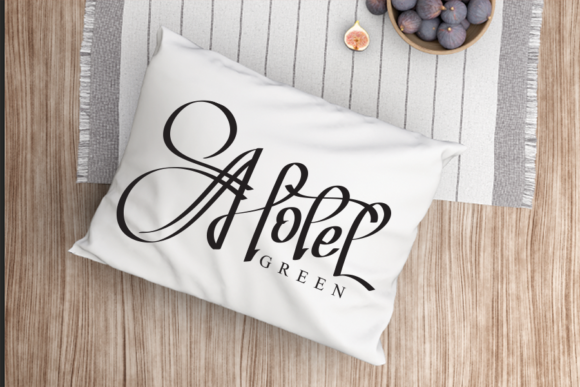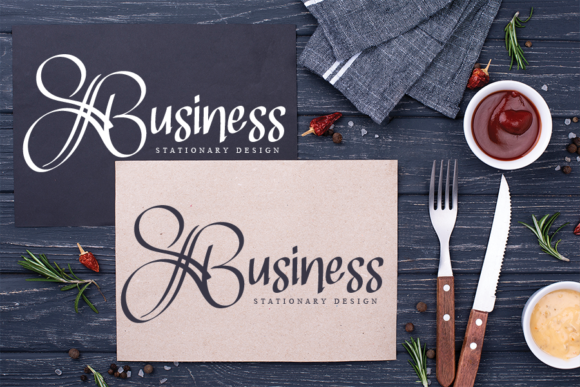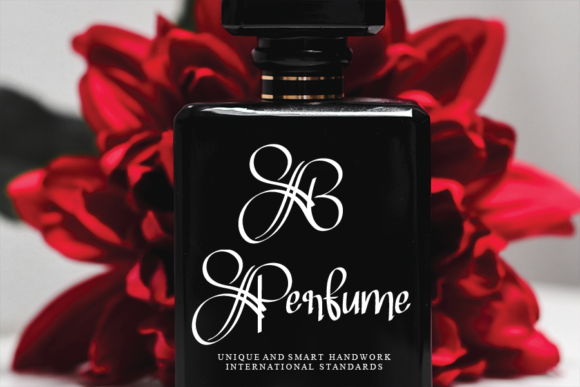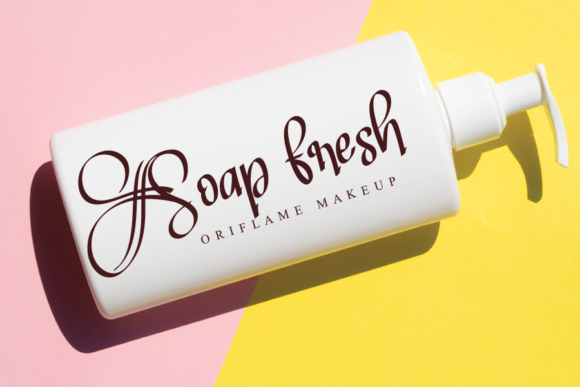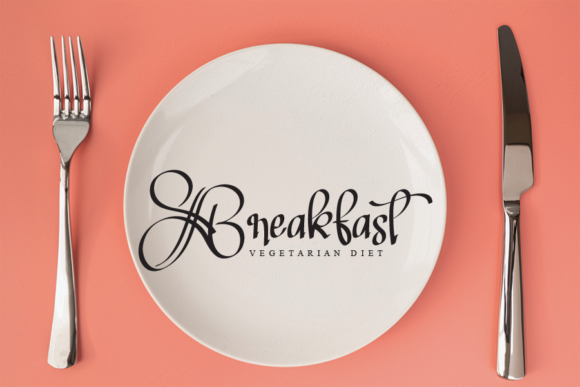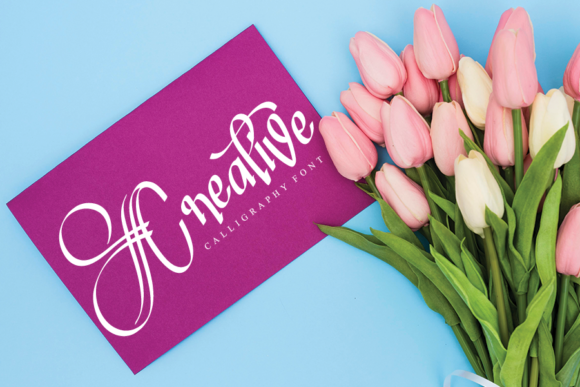
Discover the Charm of Amsterdam Font: A Sweet and Friendly Handwritten Font
Are you tired of using the same old fonts in your designs? Look no further than the Amsterdam Font, a sweet and friendly handwritten font that’s sure to add a touch of personality to your projects. With its natural and unique style, Amsterdam Font is incredibly versatile and can be used for a wide range of designs, from creative crafts to digital masterpieces.
The Inspiration Behind Amsterdam Font
Amsterdam Font is a carefully crafted font that’s inspired by the beauty of handwritten script. Its creators aimed to capture the essence of a friendly and approachable writing style, making it perfect for designers and crafters who want to add a personal touch to their work. Whether you’re creating invitations, greeting cards, or social media graphics, Amsterdam Font is sure to make your designs stand out.
What Makes Amsterdam Font So Special?
So, what sets Amsterdam Font apart from other fonts out there? Here are just a few of its unique features:
- Handwritten style: Amsterdam Font has a natural, handwritten look that’s both sweet and friendly.
- Unique character: Each letter has its own distinct personality, making your designs truly one-of-a-kind.
- Versatility: Amsterdam Font can be used for a wide range of designs, from digital graphics to print materials.
- Easy to read: Despite its handwritten style, Amsterdam Font is incredibly legible, making it perfect for body text and headlines.
Endless Design Possibilities with Amsterdam Font
The only limit to what you can create with Amsterdam Font is your imagination! Here are just a few ideas to get you started:
- Wedding invitations: Add a touch of romance to your wedding stationery with Amsterdam Font.
- Greeting cards: Create personalized greeting cards for birthdays, holidays, and special occasions.
- Social media graphics: Use Amsterdam Font to create eye-catching social media graphics that showcase your brand’s personality.
- Digital art: Experiment with Amsterdam Font in your digital art projects, from illustrations to mixed media collages.
- Crafting projects: Add a personal touch to your crafting projects, such as scrapbooking, journaling, and card making.
Tips for Using Amsterdam Font Effectively
To get the most out of Amsterdam Font, here are a few tips to keep in mind:
- Mix and match: Experiment with different font sizes, colors, and styles to create visual interest.
- Keep it simple: Don’t be afraid to use Amsterdam Font as a single font in your design – its simplicity can be incredibly effective.
- Play with texture: Add texture to your designs by combining Amsterdam Font with images, patterns, or illustrations.